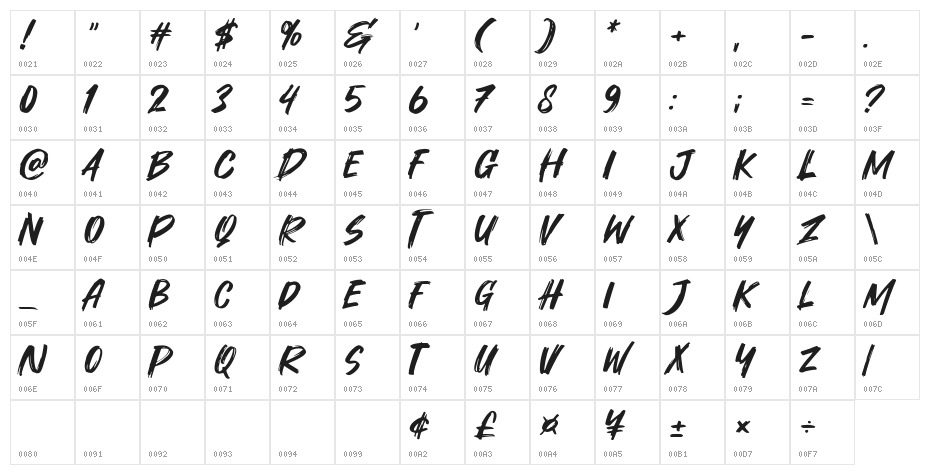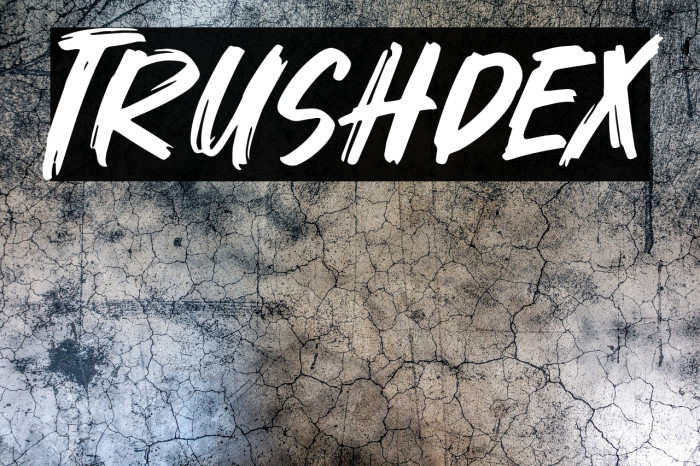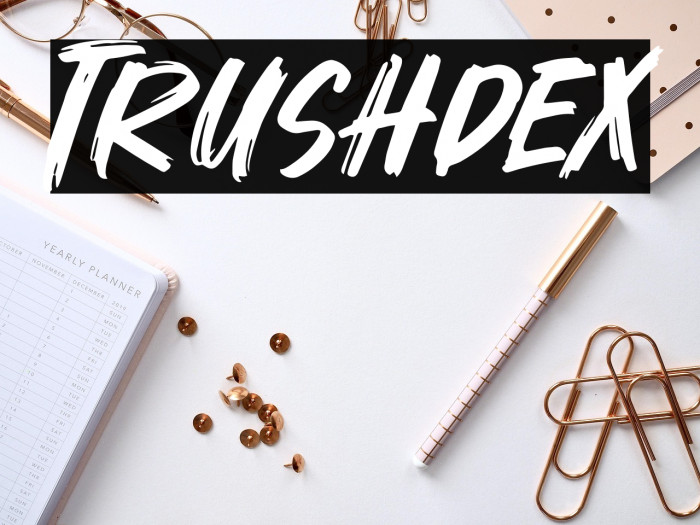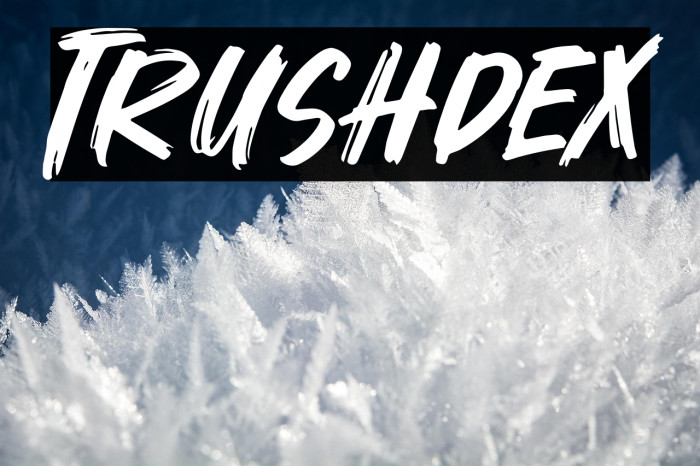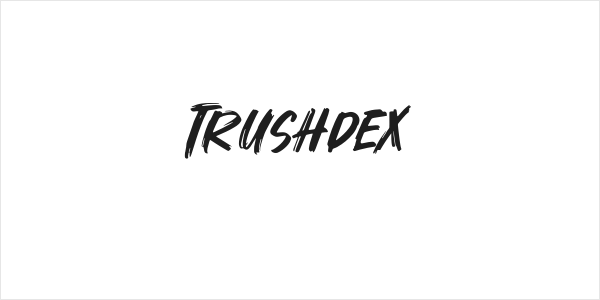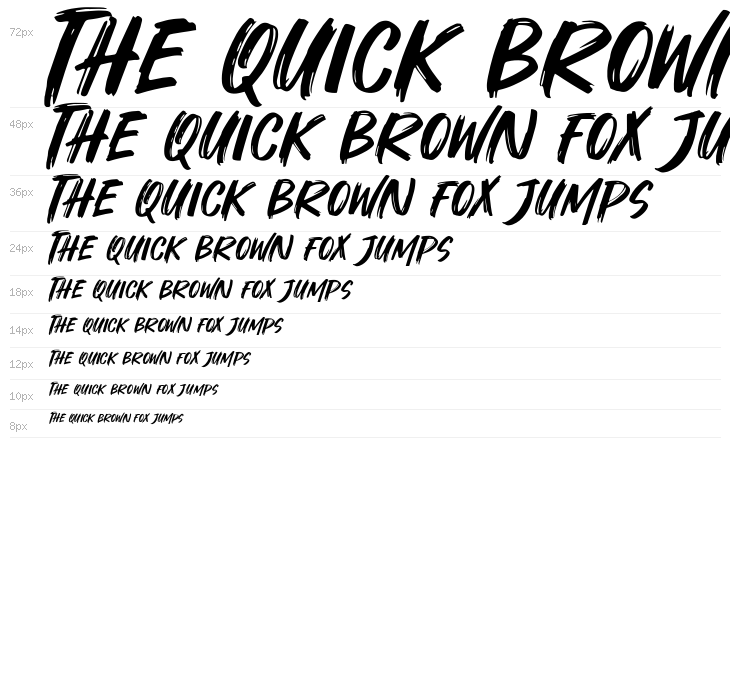
Trushdex Font
Trushdex Description
This font exhibits a bold, energetic style with a brush-like appearance, giving it a dynamic and expressive feel. The strokes are thick and uneven, adding a sense of movement and spontaneity. The characters are slightly slanted, enhancing the impression of speed and urgency. This font is highly legible despite its artistic flair, making it suitable for impactful designs. The uppercase and lowercase letters maintain a consistent style, while the numerals and special characters integrate seamlessly, ensuring versatility across various applications.